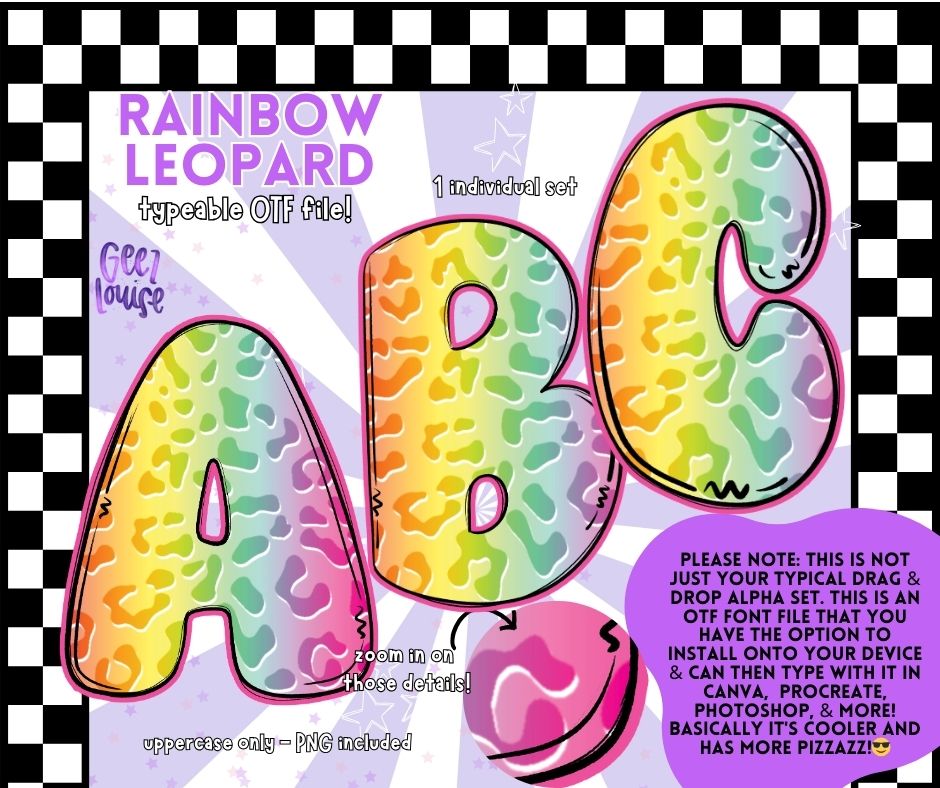
Rainbow Leopard – Bold Typeable OTF Font + PNG Alpha | Colorful Animal Print Letters
Add some serious sass to your designs with the Rainbow Leopard OTF font – a bold, colorful, and fierce typeface that’s bursting with personality! 🌈🐆
This isn’t your basic alpha set. It’s a typeable OTF font that you can install on your device and use directly in Canva, Procreate, Photoshop, and more. No more drag-and-drop—just type and go! Each letter features a juicy rainbow gradient wrapped in leopard print and outlined in playful hand-drawn flair.
Perfect for creators who love bright colors, Y2K vibes, animal print, and bold lettering. Great for T-shirts, social posts, stickers, invitations, and anything that needs a pop of wild color!
✅ Colorful rainbow leopard print pattern on each character
✅ Designed for high-impact, creative projects
🎨 Adds wild style to every project
🌈 Eye-catching and full of color
🔥 Designed to stand out